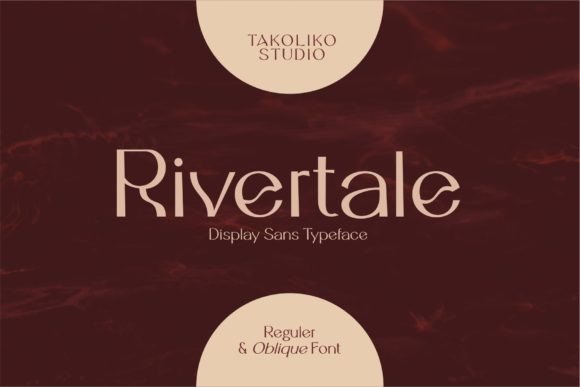
Feast your eyes on Rivertale, a display sans serif typeface brimming with creativity. Inspired by the river's enchanting flow, Rivertale boasts a wavy curve on selected glyphs, adding a hint of psychedelic charm to your designs. Its innate adaptability allows it to effortlessly transition from formal to casual settings, all while exuding a touch of feminine grace.
Rivertale is a font that knows no bounds, seamlessly blending with an array of projects, effectively conveying your brand's unique identity. Unleash your creative genius and witness Rivertale's transformative power, as it elevates your designs to remarkable heights.
Dive into the world of Rivertale and unlock a realm of possibilities. Its boundless versatility makes it the perfect companion for logos that demand attention, posters that ignite passion, and branding that leaves an indelible mark. Rivertale's inherent allure extends to magazine ads, social media campaigns, and website designs, captivating audiences with its distinctive charm.
With Rivertale, you hold the key to unlocking a world of creativity. Its endless applications will ignite your imagination and transform your designs into captivating masterpieces. Embrace the flow of Rivertale and let your creativity flourish.